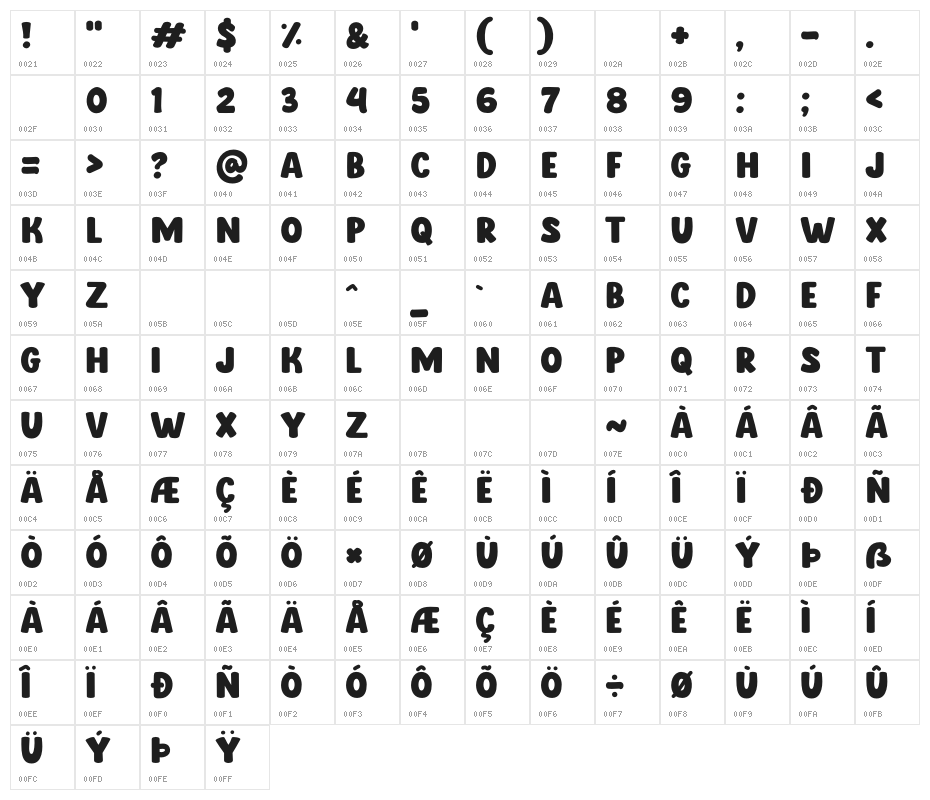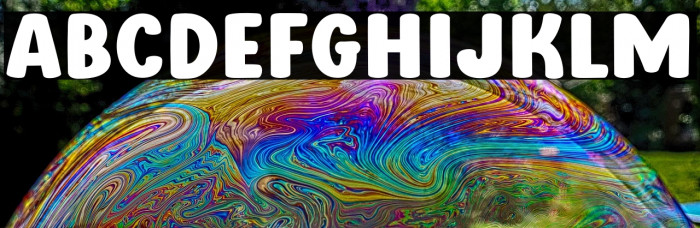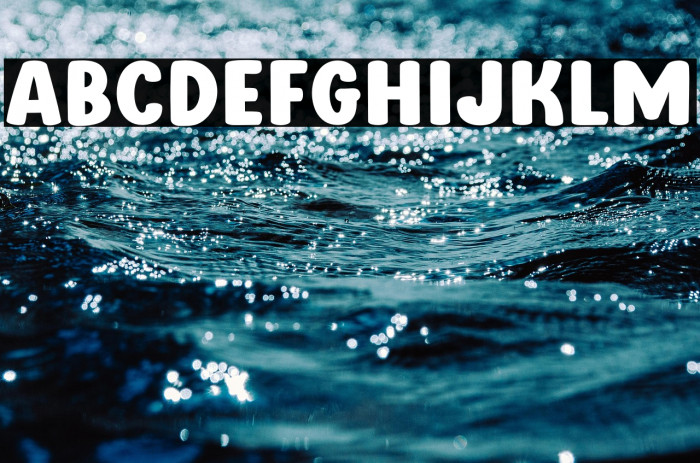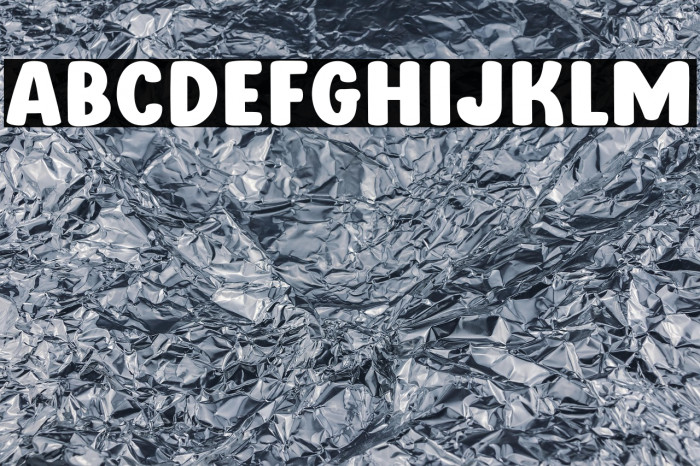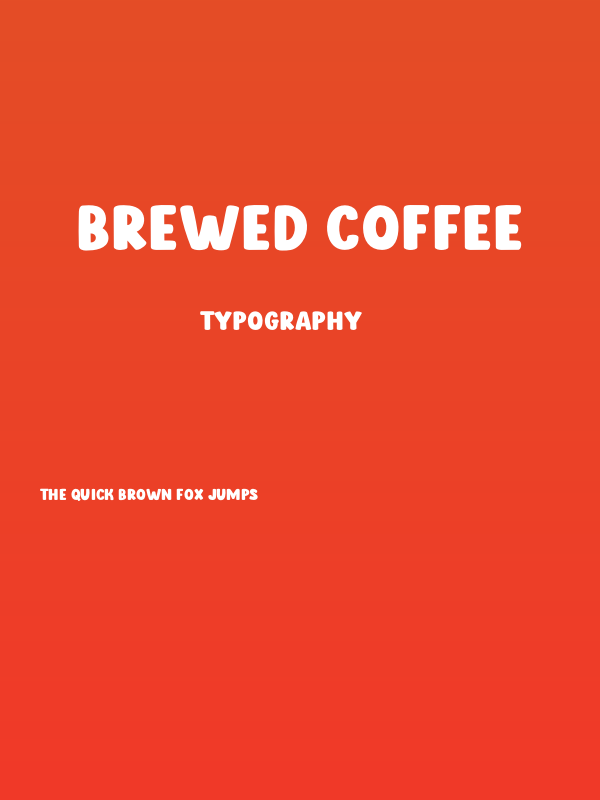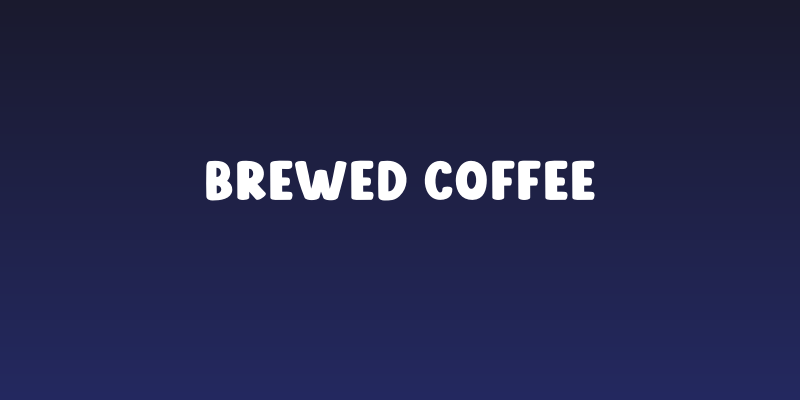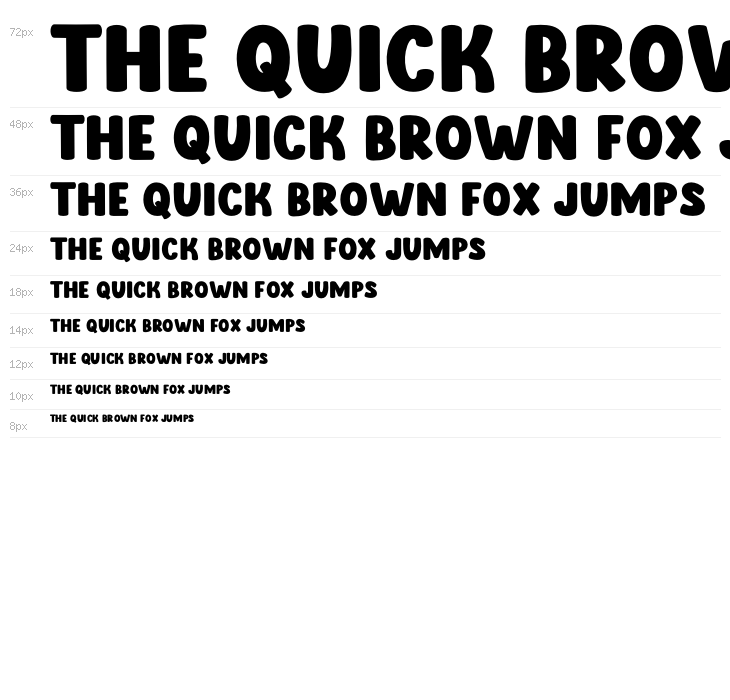
Brewed Coffee Font
Brewed Coffee Description
This font features a bold and playful style with rounded edges that give it a friendly and approachable appearance. The characters are thick and robust, making them highly legible and ideal for grabbing attention. The uppercase and lowercase letters maintain a consistent width, contributing to a harmonious and balanced look. The numbers and special characters are designed to match the overall aesthetic, ensuring a cohesive appearance across all text. The font's design is reminiscent of hand-drawn lettering, adding a touch of warmth and personality.
| Proposed Projects | Ideal for children's books, playful branding, posters, and social media graphics. |